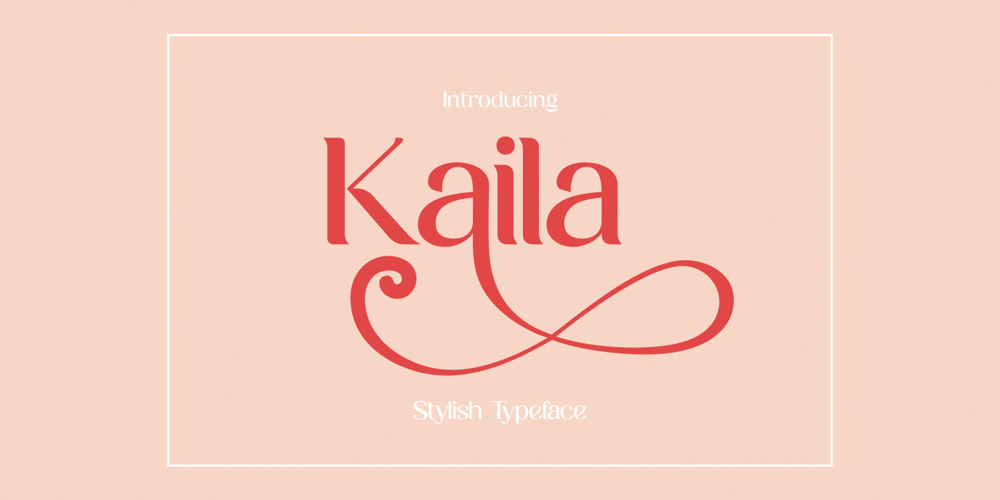
Kaila Font Family was designed by Amri Mauludin and published by ArimaType. Kaila contains 1 styles and family package options. Kaila is a bold but elegant serif font. Its elegance and simplicity make this font look absolutely stunning on a variety of design ideas, both formal and informal.